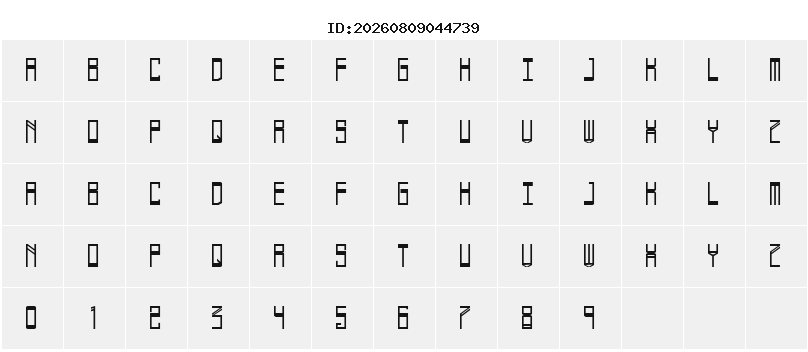
Phlekzi Preview
• Font Name: Phlekzi
• Full Font Name: Phlekzi
• Character Count: 65
About Phlekzi.ttf
Phlekzi.ttf is a modern, elegant sans-serif font designed for ultimate readability and visual harmony. Perfect for branding, headlines, web design, and print materials.